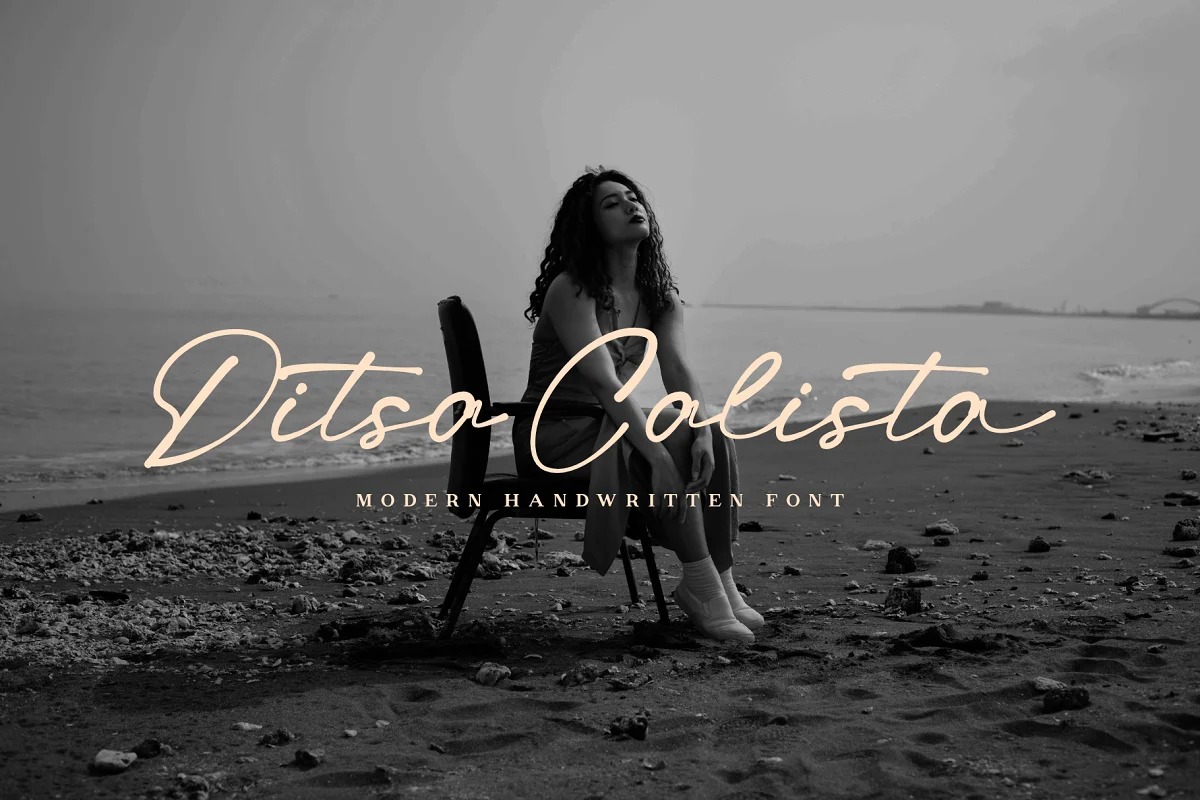
Ditsa Calista Handwritten Font
It’s modern hand-drawn script font with casual-chic flair. Looks modern and luxurious ready to accompany your design project. So beautiful when applied in design projects such as logos, name cards, branding, Instagram posts and much more for you to create.